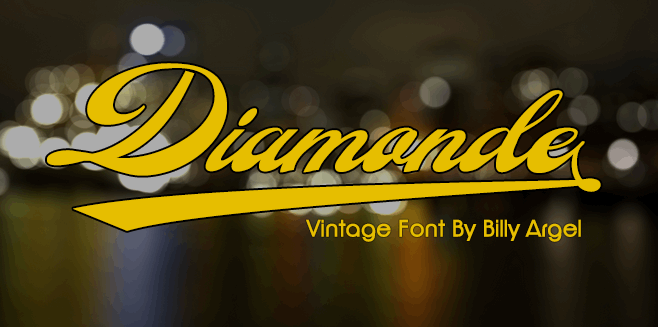
Free Diamonde Font
Free diamonde font for any designer that is looking to display their design professionally. This typeface file was found from the amazing source called Font Space. Showcase your designs like a graphic design pro by adding a new touch with this fancy font.